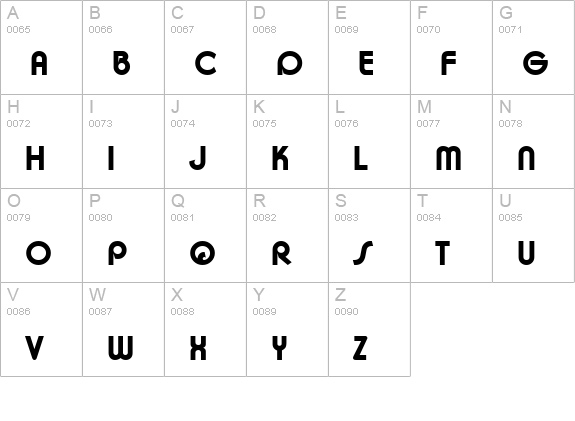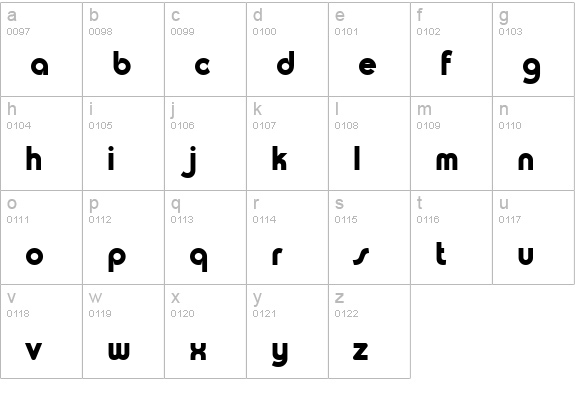
ChuckWarren DesignSH font is a stunning display typeface that exudes elegance and modernity. With its sleek lines and sophisticated curves, this font is perfect for creating eye-catching designs that demand attention. Whether you're working on branding projects, advertising materials, or any other creative endeavor, ChuckWarren DesignSH font is sure to make a bold statement. What's even better is that this exquisite font is completely free to download at FontsMarket.com. You can easily enhance your projects with this stylish typeface without any cost involved. Don't miss out on the opportunity to elevate your designs with ChuckWarren DesignSH font - download it now and let your creativity shine!